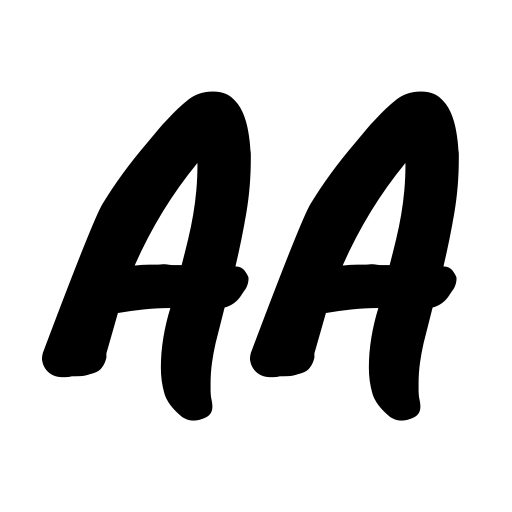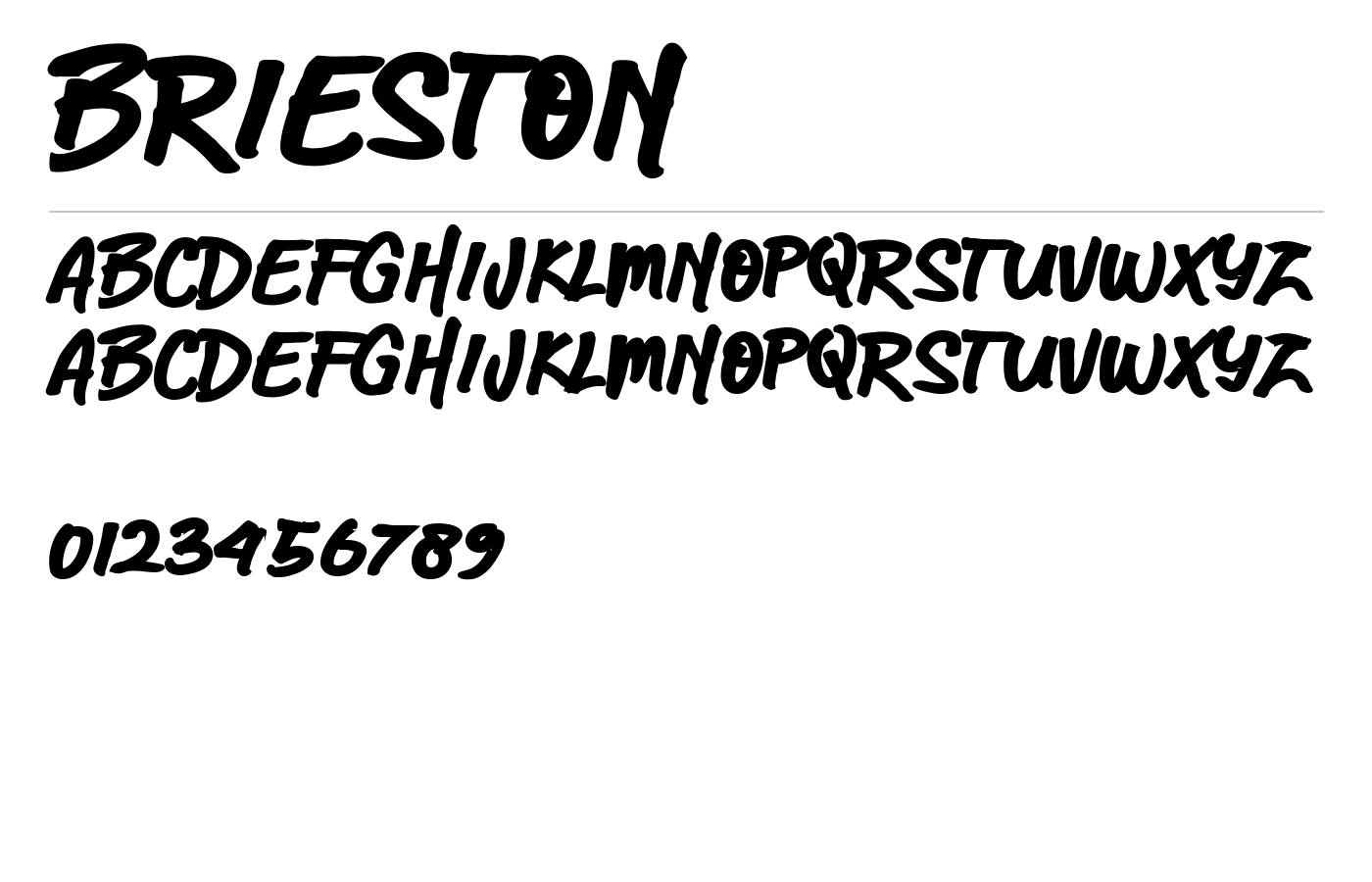
Brieston is a bold, energetic brush-style sans serif font that features thick, rounded strokes and a lively, hand-painted feel. Its uppercase letters have a casual, slightly condensed form with dynamic curves and rough edges, making it perfect for eye-catching headlines, logos, and packaging where a playful yet confident personality is desired. This font works well for creative and informal brands looking to convey warmth and approachability while maintaining strong visual impact.
Brieston Font
About Brieston Font